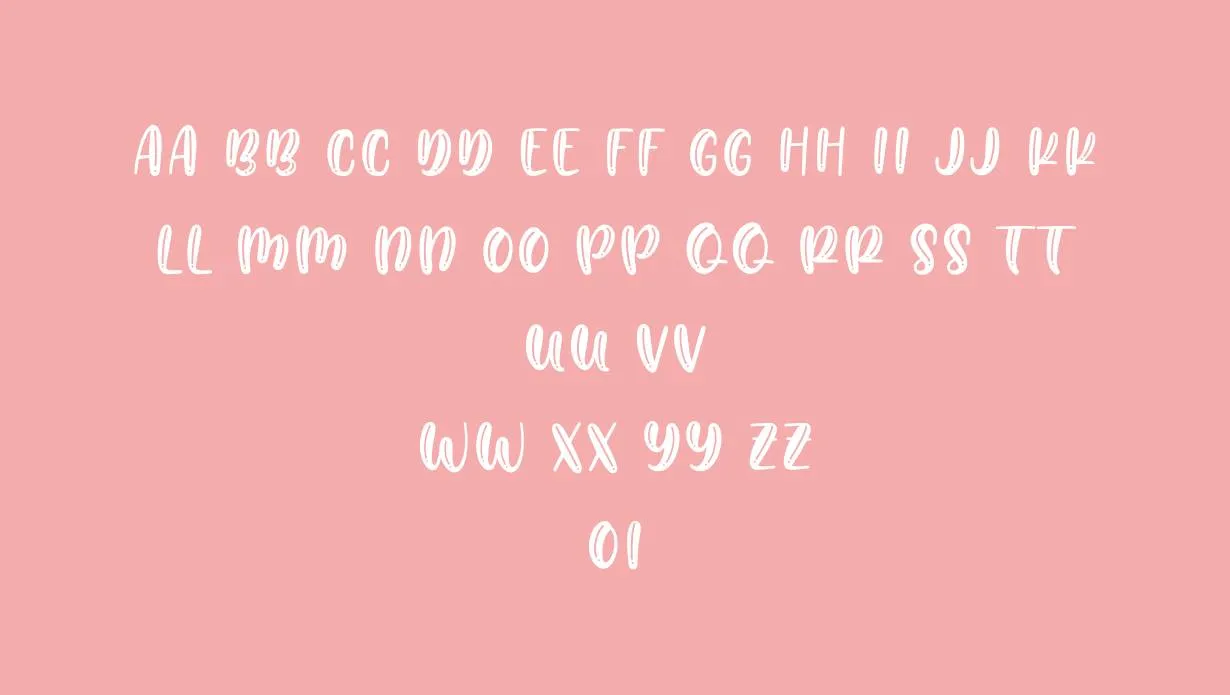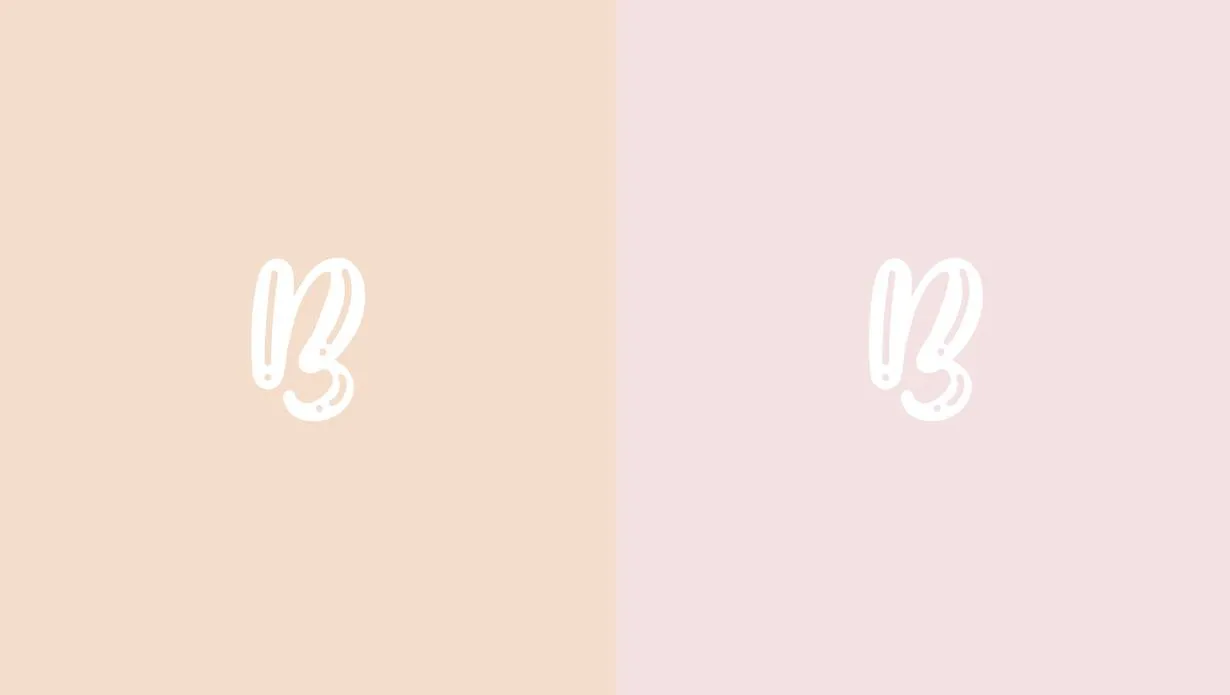
Bubblez Font was designed by Abdul Malik and shared by Almarkhatype in 2020, it belongs to the Fancy font family, and it has a joyful, funny, and bubbly appearance that makes it perfect for cute and unique designs.
Bubblez Font Family
| Name | Bubblez Font |
| Designer | Abdul Malik |